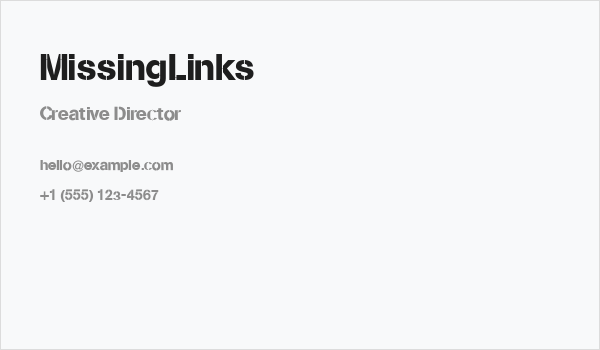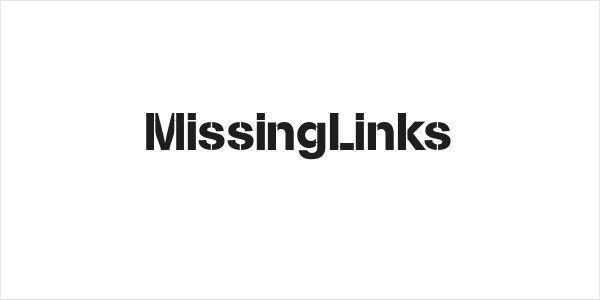
MissingLinks Font
MissingLinks Description
This font features a bold and impactful design with a modern, geometric style. The characters are constructed with thick strokes and sharp angles, giving it a strong presence. The unique aspect of this font is the incorporation of missing segments within each character, creating a visually intriguing and dynamic appearance. This design choice adds an element of mystery and creativity, making it stand out in any application. The uppercase and lowercase letters maintain a consistent weight, while the numerals and special characters follow the same stylistic approach, ensuring uniformity across all elements.